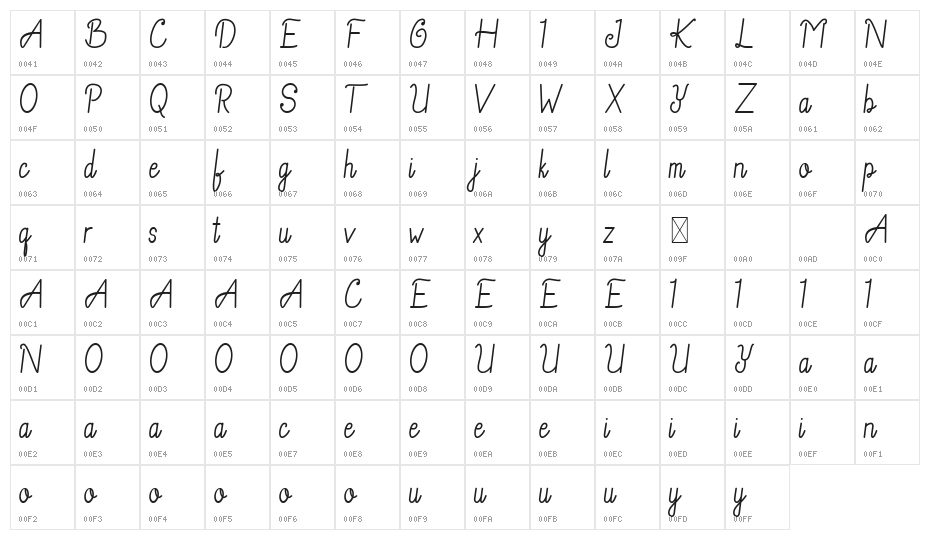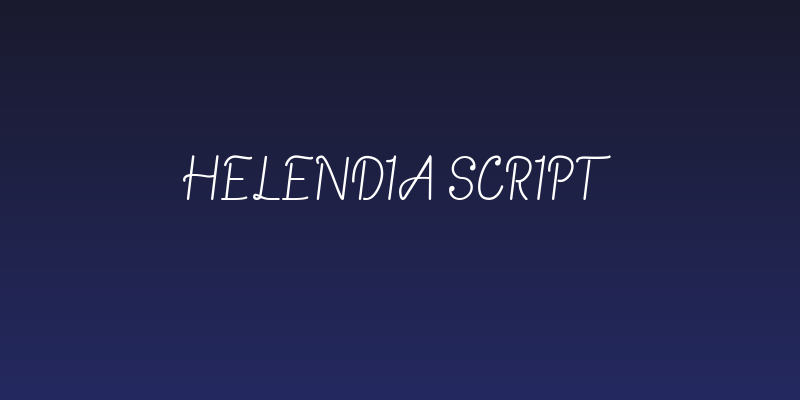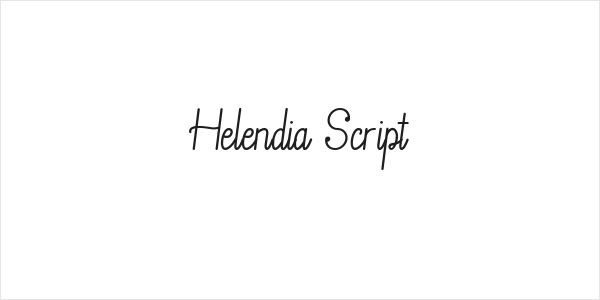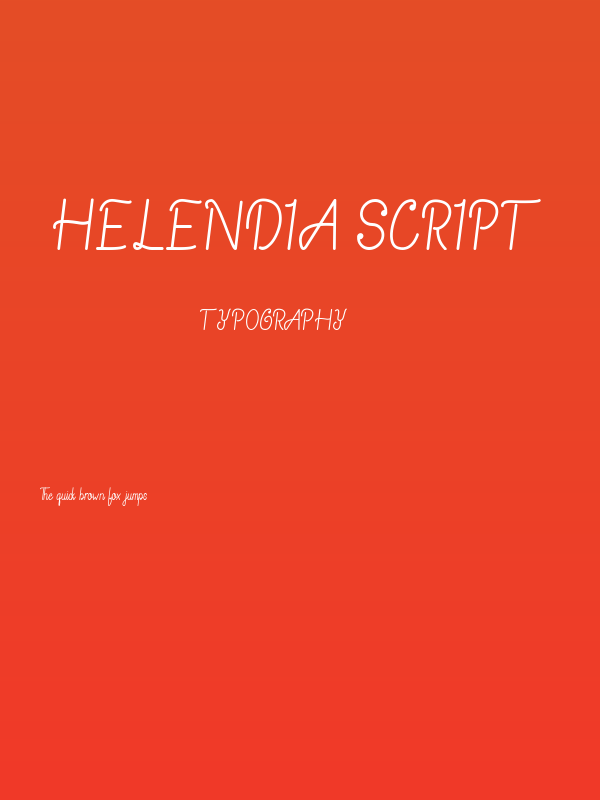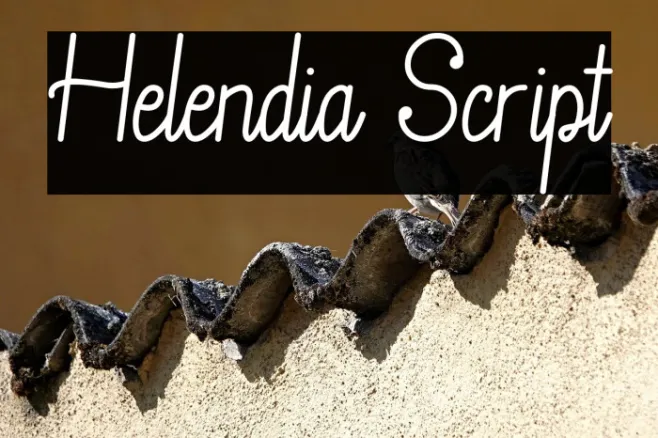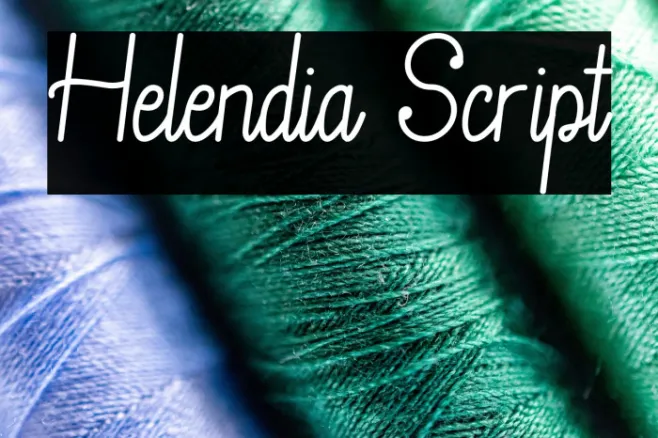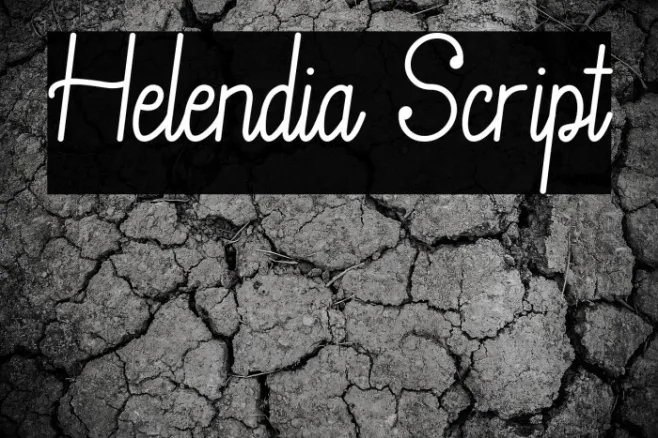
Helendia Script Font
Helendia Script Description
This script font exudes elegance and fluidity, characterized by its smooth, flowing strokes and delicate curves. The uppercase letters are tall and slender, with a slight slant that adds a touch of sophistication. The lowercase letters are more rounded, maintaining a consistent rhythm throughout the text. The font's design is reminiscent of traditional calligraphy, yet it retains a modern flair, making it versatile for various design applications. The characters are well-spaced, ensuring readability while maintaining an artistic appeal. The font's overall style is both graceful and contemporary, suitable for projects that require a personal touch.
| Overall Style | Modern, Elegant |
| Use Case | Headlines, Invitations, Branding |
| Proposed Projects | Ideal for wedding invitations, greeting cards, branding, and elegant packaging designs. |